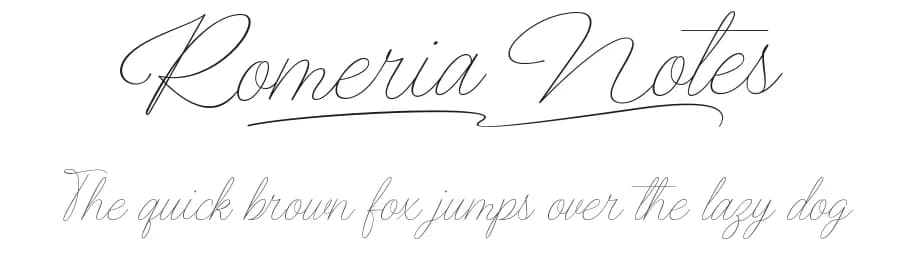
About Romeria Notes Font
Romeria Notes is a handwritten font that captures the genuine essence of a signature.
This natural script font with fluid strokes seems as if it's been directly lifted from a personal notebook.
| Designer | Mans Greback |
Romeria Notes Font
by Måns Grebäck